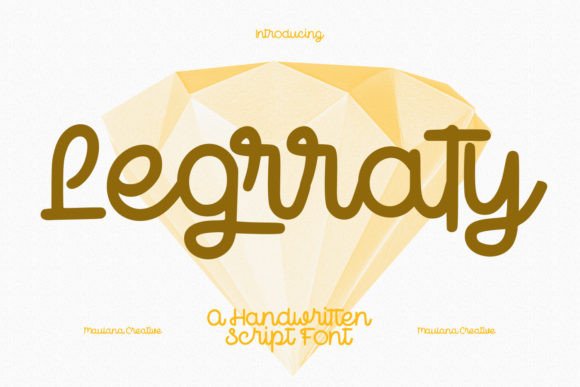
Step into the world of Legrraty, a breathtaking script font that will transform your creative vision into a lyrical masterpiece. This meticulously handcrafted font, brought to life by Maulana Creative, exudes a retro charm with its medium mono-line strokes, playful characters, and delightful ligatures.
Legrraty is not just a font; it's an expression of your individuality, a canvas for your emotions, and a gateway to a world of artistic possibilities. Whether you're a seasoned designer or a budding artist, Legrraty will ignite your imagination and elevate your designs to new heights.
With its captivating curves and dynamic flow, Legrraty is the perfect font for lyric tattoos. Its elegant lines and expressive characters will immortalize your favorite lyrics on your skin, creating a permanent reminder of the songs that touch your soul.
Unleash your creativity and let Legrraty guide you through a journey of self-expression. Whether you're crafting logos, designing social media posts, or creating eye-catching movie titles and book covers, Legrraty will add a touch of sophistication and allure to your work.
Immerse yourself in the beauty of Legrraty, a font that speaks to the heart and captures the essence of artistic freedom. Download Legrraty today and embark on a creative adventure where your imagination knows no bounds.